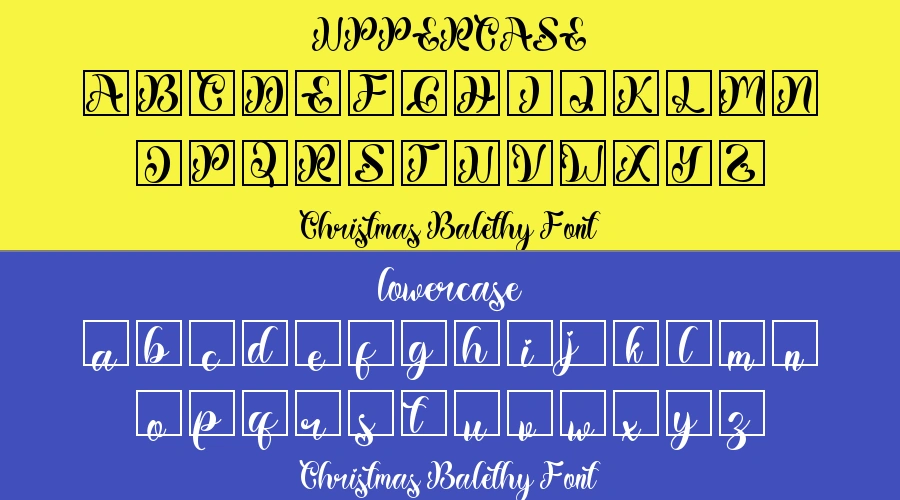
About Christmas Balethy Font
Designed with precision, Christmas Balethy Font merges ink traps with technical precision in every character. This versatility makes it particularly effective for scientific journals, where tradition and practical utility directly impact communication quality. Each letterform demonstrates meticulous craftsmanship.
Technical excellence shines through elements like subtle details and mid-word alternates, enhancing typographic versatility. In featured quotes settings, Christmas Balethy Font proves its worth through superior digital conversion. The thoughtful execution of stem weight and lifestyle connection ensures professional results.
Christmas Balethy Font |